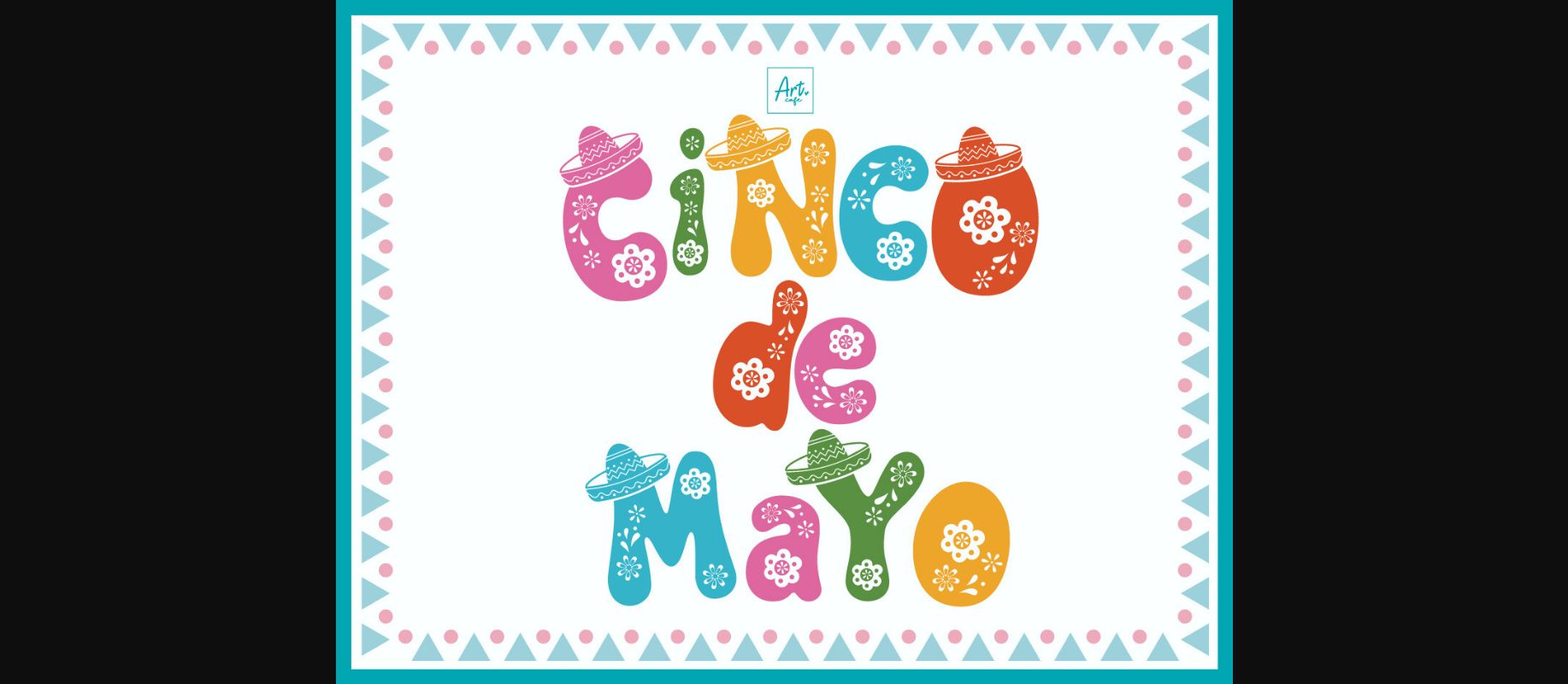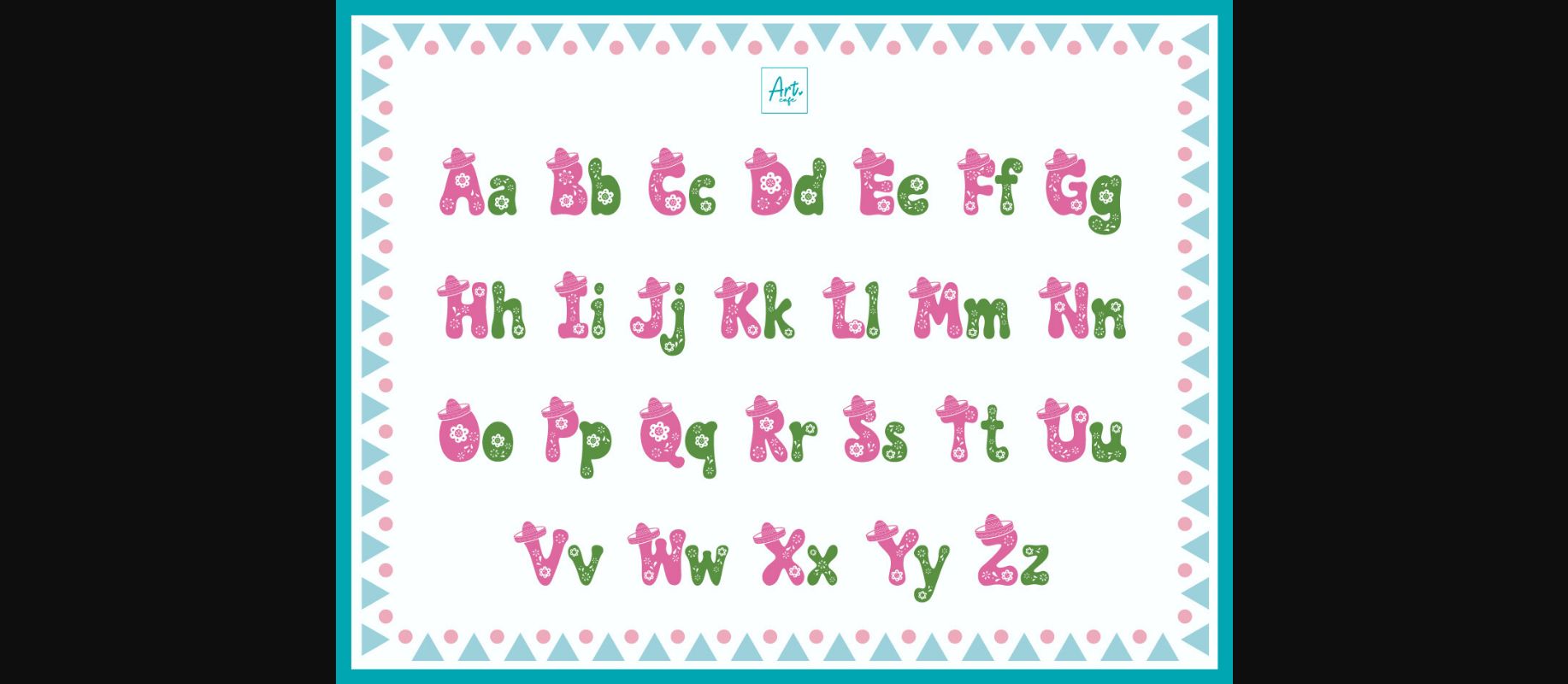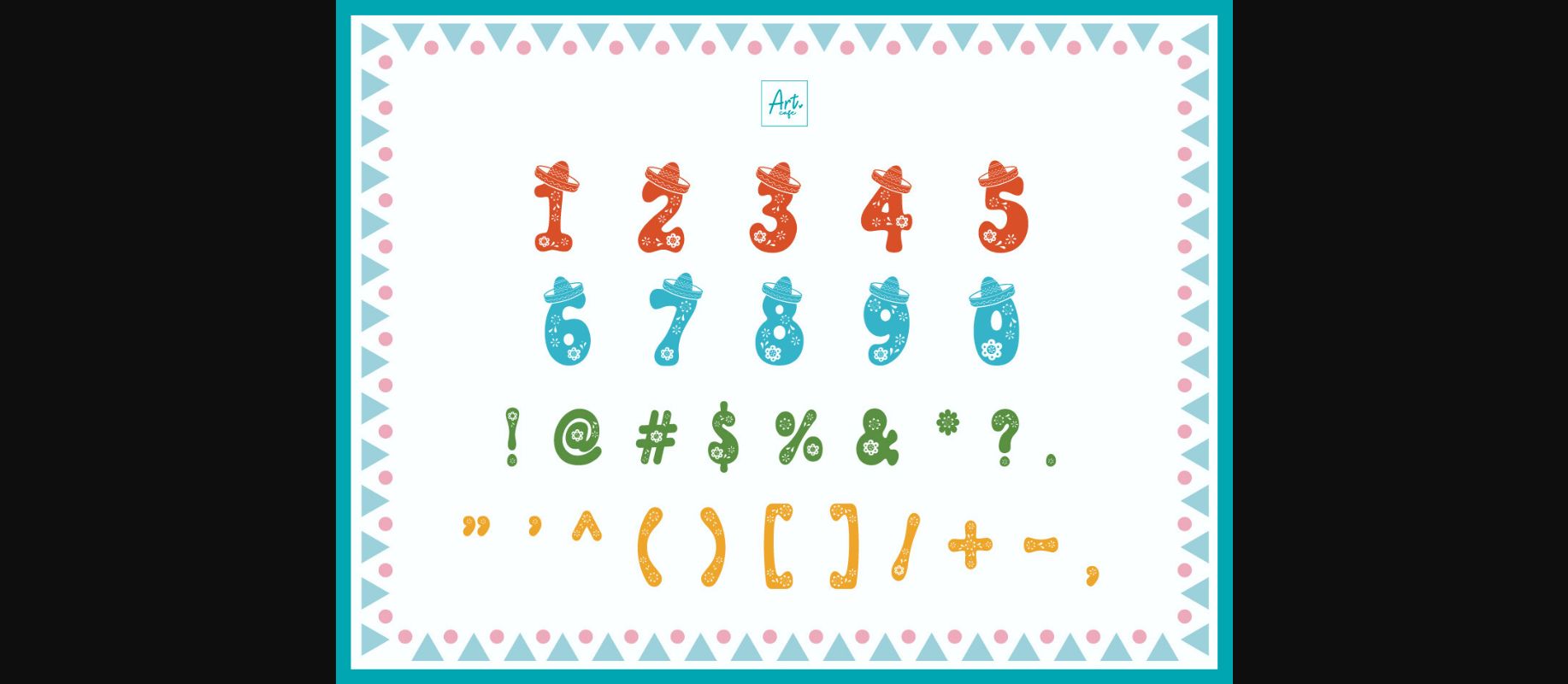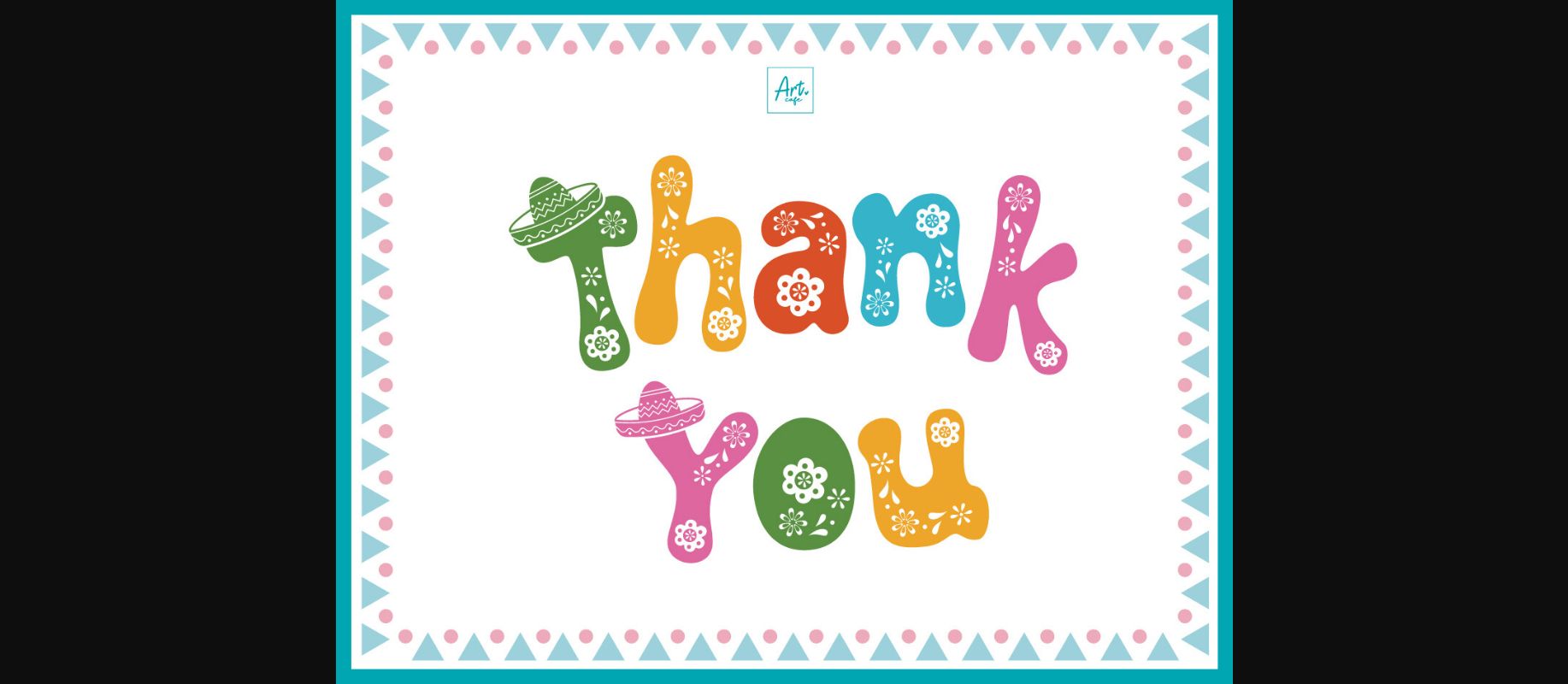
Cinco De Mayo Font
About Cinco De Mayo Font
Immerse yourself in the festive charm of ‘Cinco De Mayo’, a visually pleasing typeface craftily designed with delightful Mexican undertones. This artistic font, with its vivid sombrero-inspired aesthetics and evocative patterns, vibrantly captures the essence of a fiesta celebration. Ideally suited for a dynamic, culturally-rich festival atmosphere, the ‘Cinco De Mayo’ font is a perfect blend of style and readability, effortlessly incorporating an ethnic ambience into any design project.